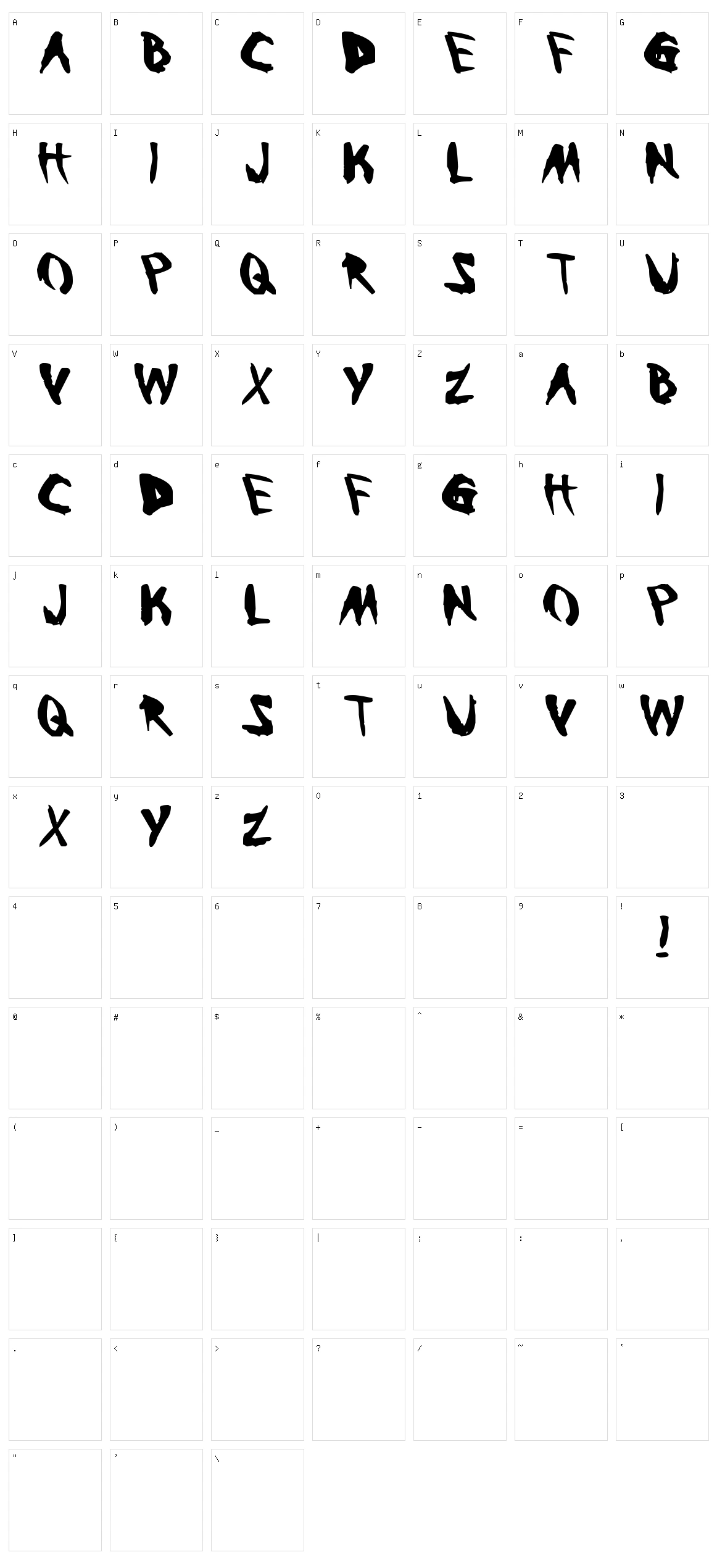
The free font Bleeding Trough is carefully designed by Gaven Van Sant, showcasing a thoughtful balance of creativity and usability and falls under the Trash font style. When you download the ZIP file, it contains only 8.32 KB of font files, making it lightweight and quick to download. Please review the license details below to understand permitted usage and distribution rights. If license information is not available, we recommend using this font for personal projects only or contacting the author directly for commercial usage permissions.